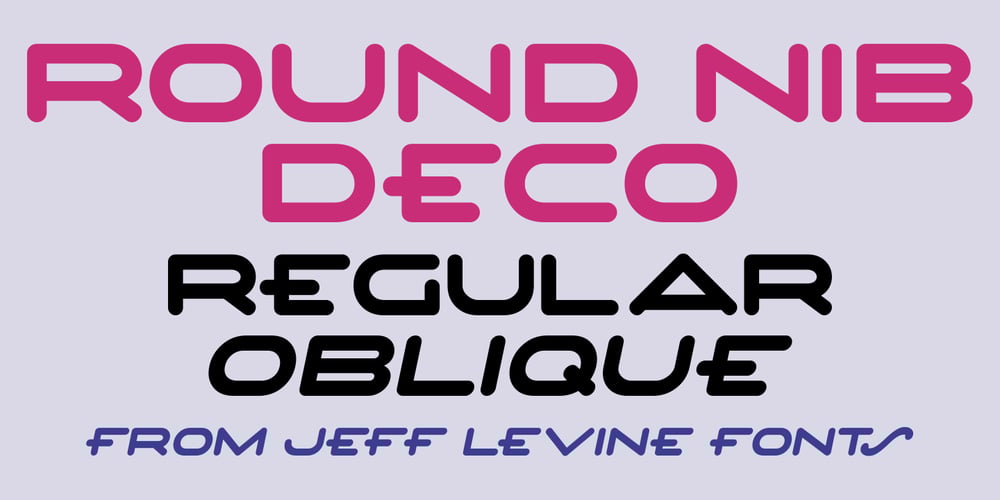
Round Nib Deco JNL Font Family was designed by Jeff Levine and published by Jeff Levine. Round Nib Deco JNL contains 2 styles and family package options. Great type font inspirations can come from any time period and any location in the world. A Febuary, 1932 issue of an Estonian woman’s magazine called “Eesti Naine” had its name hand lettered using a round nib lettering pen.This extra-wide Art Deco design is now available as Round Nib Deco JNL, and is available in both regular and oblique versions.